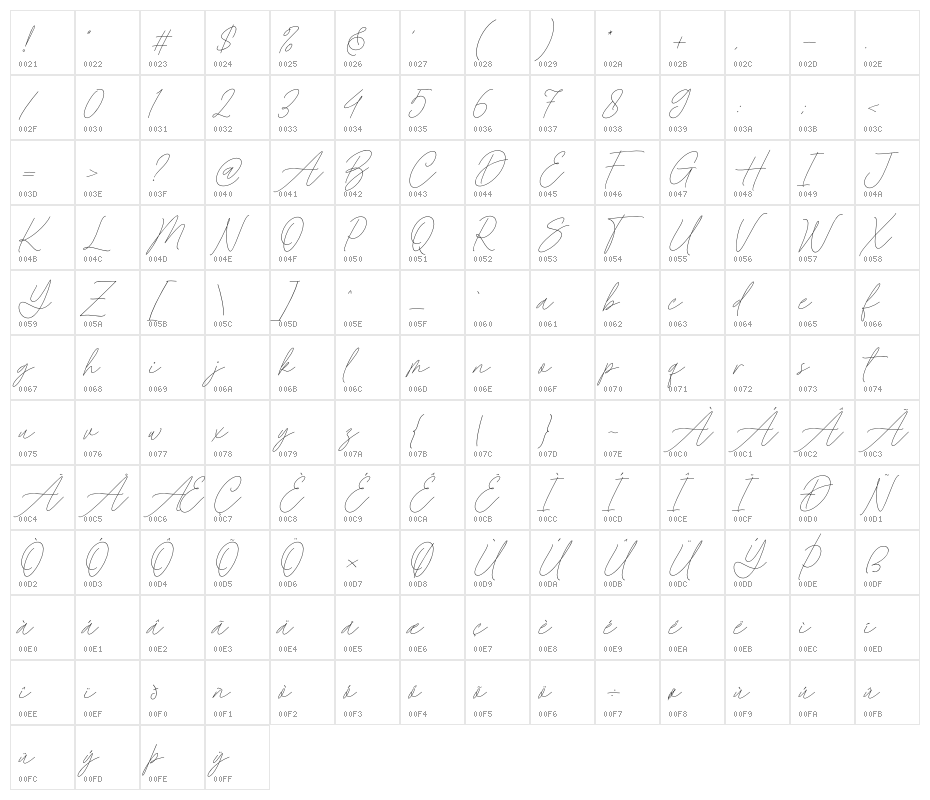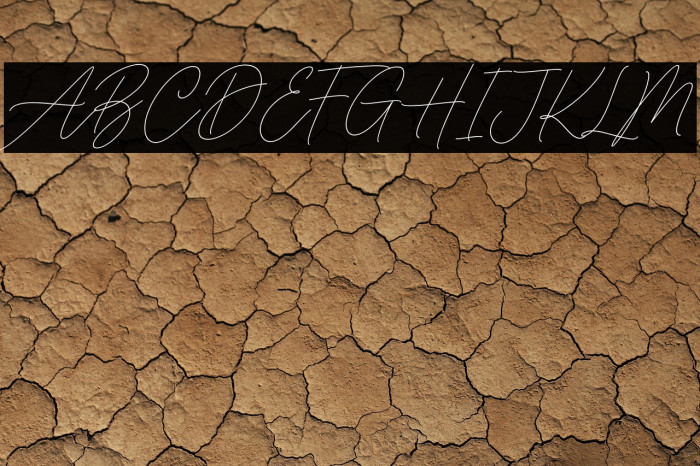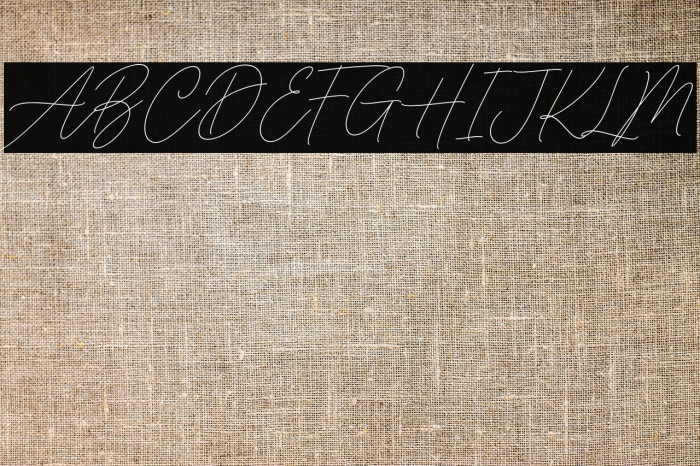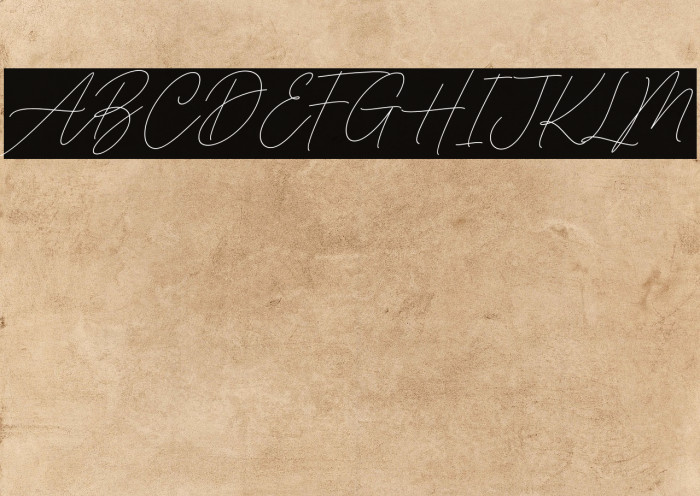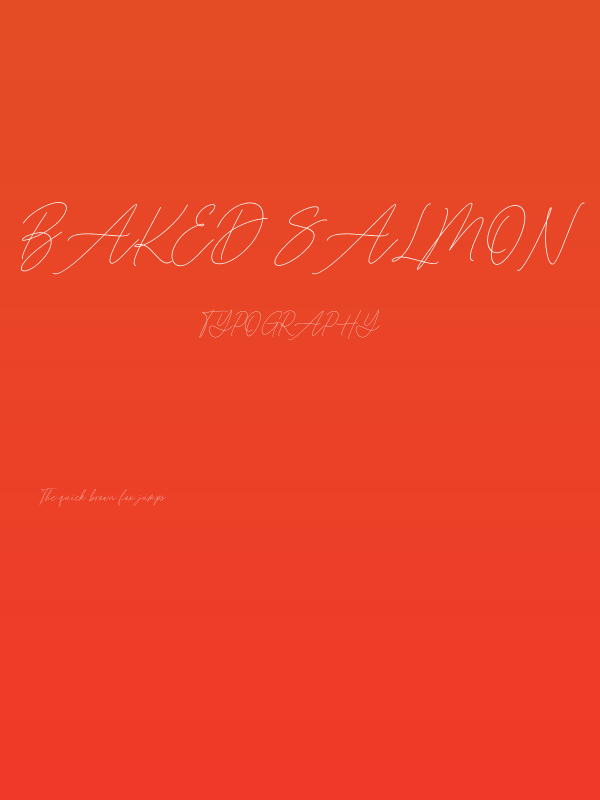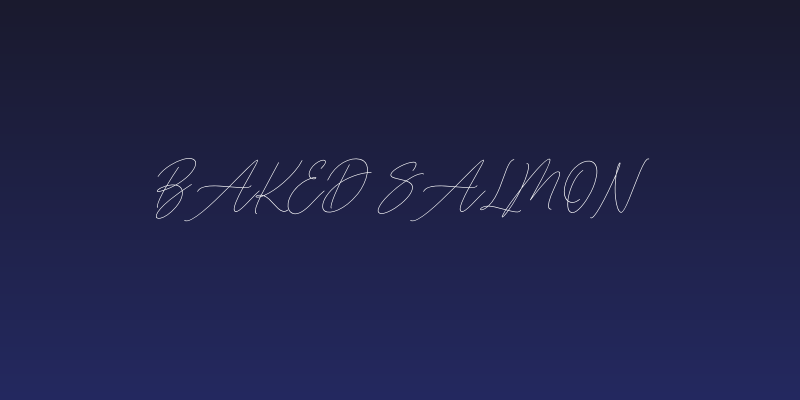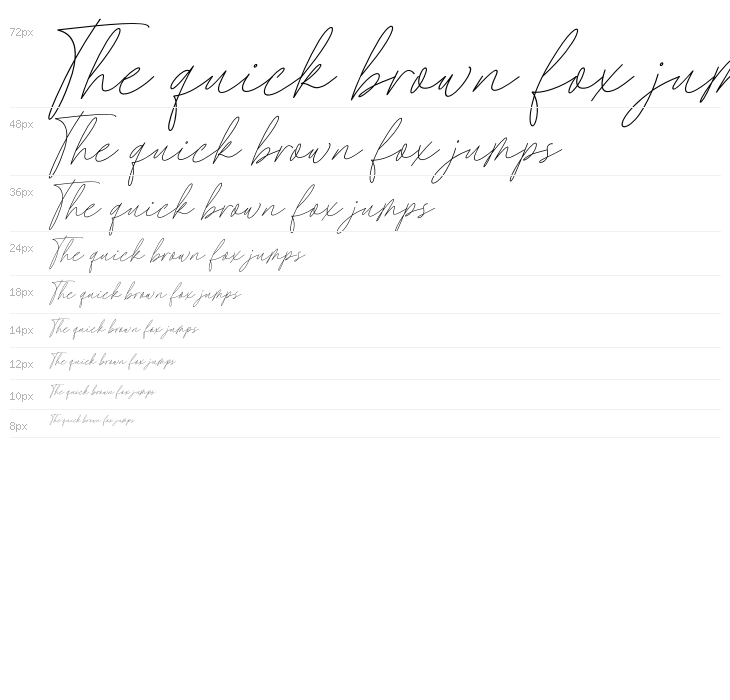
Baked Salmon Font
Baked Salmon Description
This font exudes a casual elegance with its flowing, handwritten style. The characters are crafted with a smooth, continuous stroke that mimics the fluidity of cursive writing. Each letter connects seamlessly, creating a harmonious and cohesive look. The uppercase letters are slightly larger and more pronounced, while the lowercase letters maintain a consistent height, adding to the overall balance. The numerals and special characters are designed with the same graceful touch, ensuring uniformity across all elements. The font's airy and open design makes it highly legible, even at smaller sizes, while its sophisticated flair adds a touch of refinement to any project.
| Overall Style | Elegant, Casual |
| Use Case | Invitations, Personal branding, Greeting cards |
| Proposed Projects | Ideal for wedding invitations, personal branding, greeting cards, and elegant packaging designs. |